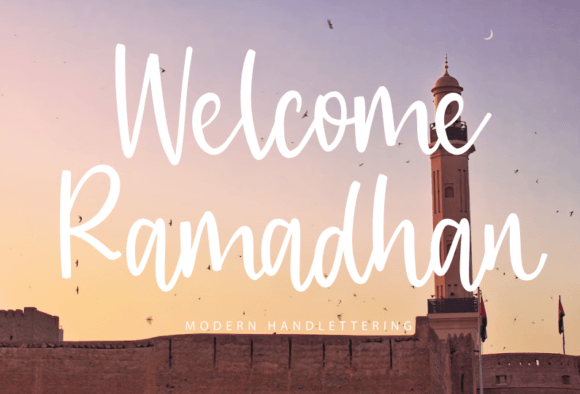
Introducing Welcome Ramadhan - A Handcrafted Masterpiece to Enrich Your Design Palette
Embark on a typographic journey like no other with Welcome Ramadhan, a stunning handwritten font that captivates hearts and ignites creativity. Crafted with meticulous care by Goodrichees, this exquisite script font is a symphony of elegance and versatility, designed to elevate your designs to new heights.
Welcome Ramadhan's intricate letterforms dance across the page with a captivating charm that is both timeless and utterly contemporary. Its flowing strokes and graceful curves evoke a sense of romance and nostalgia, making it the perfect choice for heartfelt projects that demand a touch of individuality. Whether you're creating logos, wedding invitations, photography watermarks, or modern websites, Welcome Ramadhan will effortlessly add a layer of sophistication and artistry.
As one of the Best Fonts for Books in 2018, Welcome Ramadhan has earned accolades for its readability and visual appeal. Its distinct style adds character to any text, making it a joy to read and a pleasure to behold. Whether you're crafting a captivating novel, a compelling marketing brochure, or an informative blog post, Welcome Ramadhan ensures your words will captivate and engage your audience.
Fall head over heels in love with Welcome Ramadhan's incredibly distinct and timeless style. Its versatility knows no bounds, making it an essential tool in the arsenal of any discerning designer. From elegant logos and whimsical wedding stationery to captivating photography watermarks and sleek modern websites, Welcome Ramadhan transforms your creative visions into stunning realities.
Discover the magic of Welcome Ramadhan today and unlock a world of design possibilities. Let its enchanting beauty captivate your imagination and create spectacular designs that leave a lasting impression. Embrace the artistry, embrace the elegance, and embrace Welcome Ramadhan - the font that will redefine your creative journey forever.